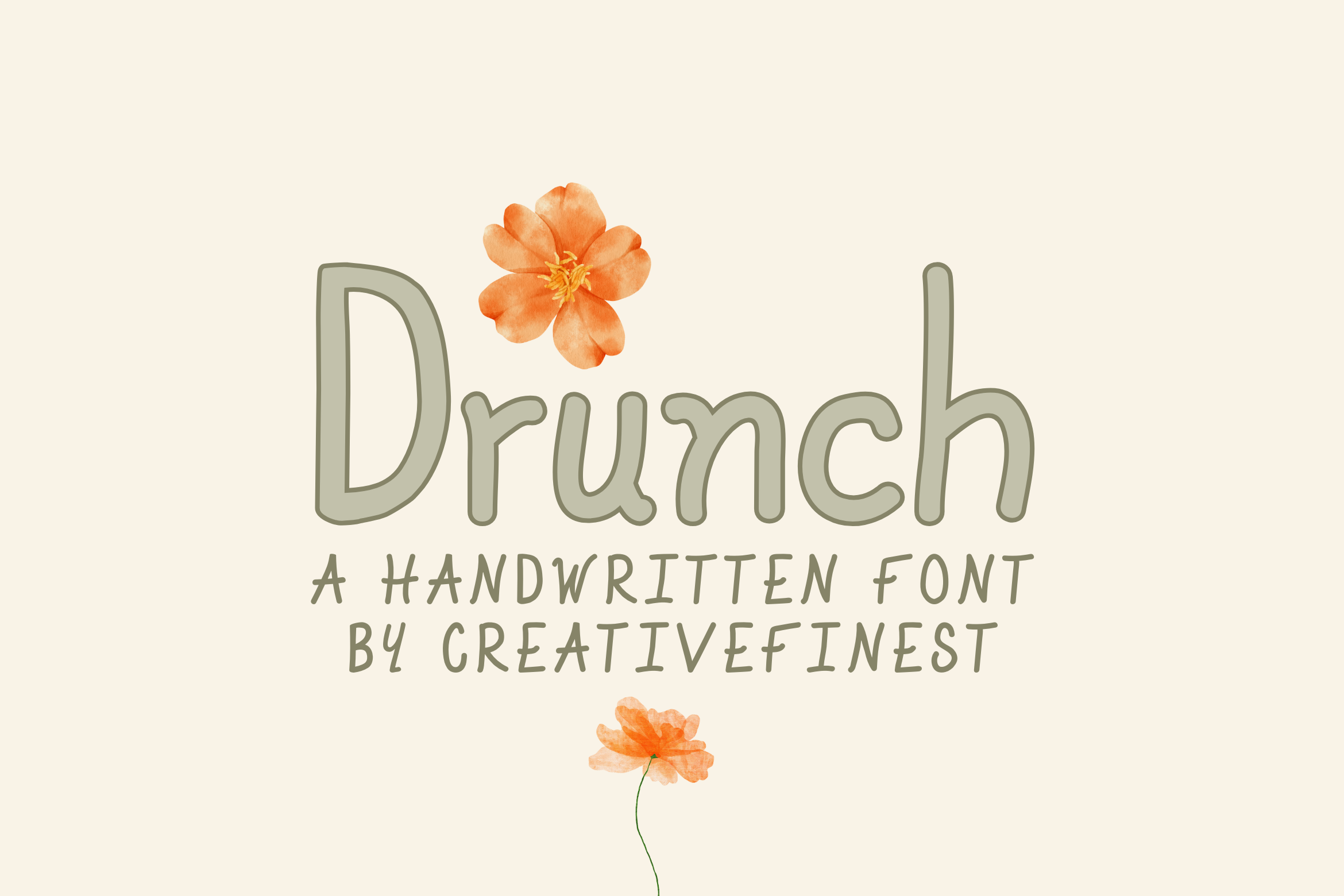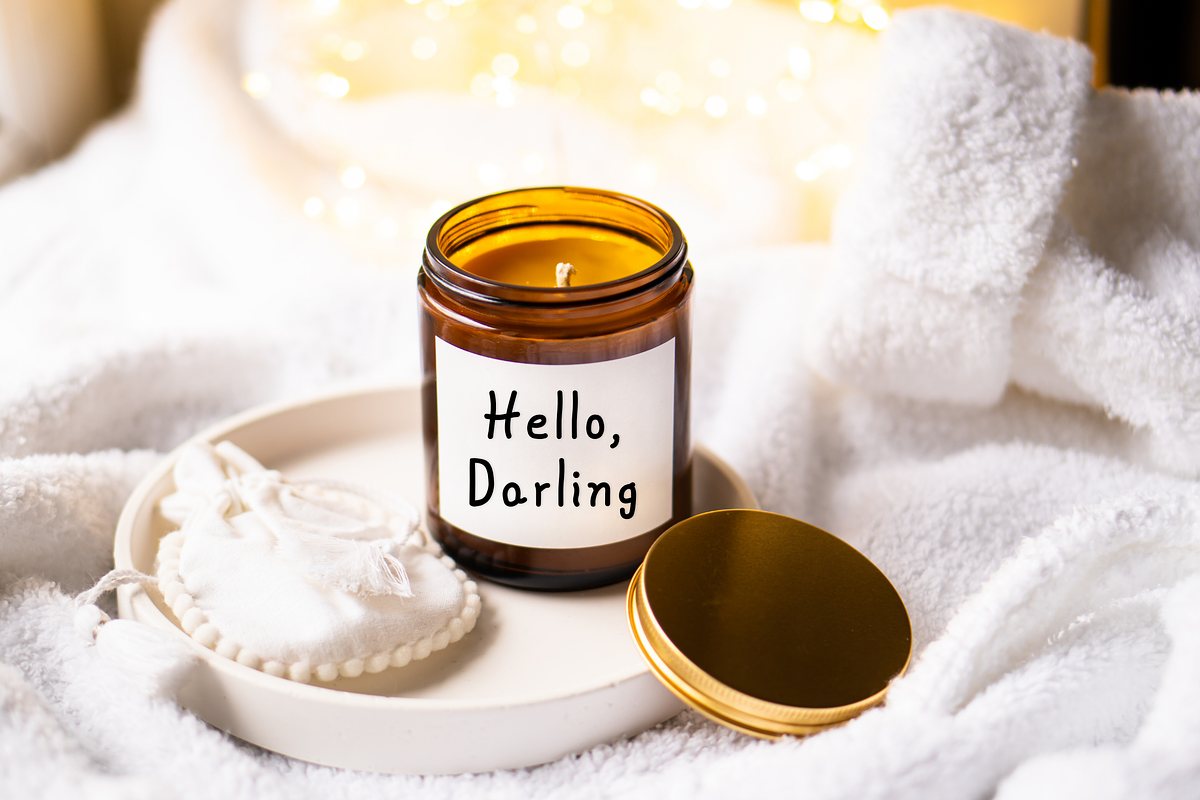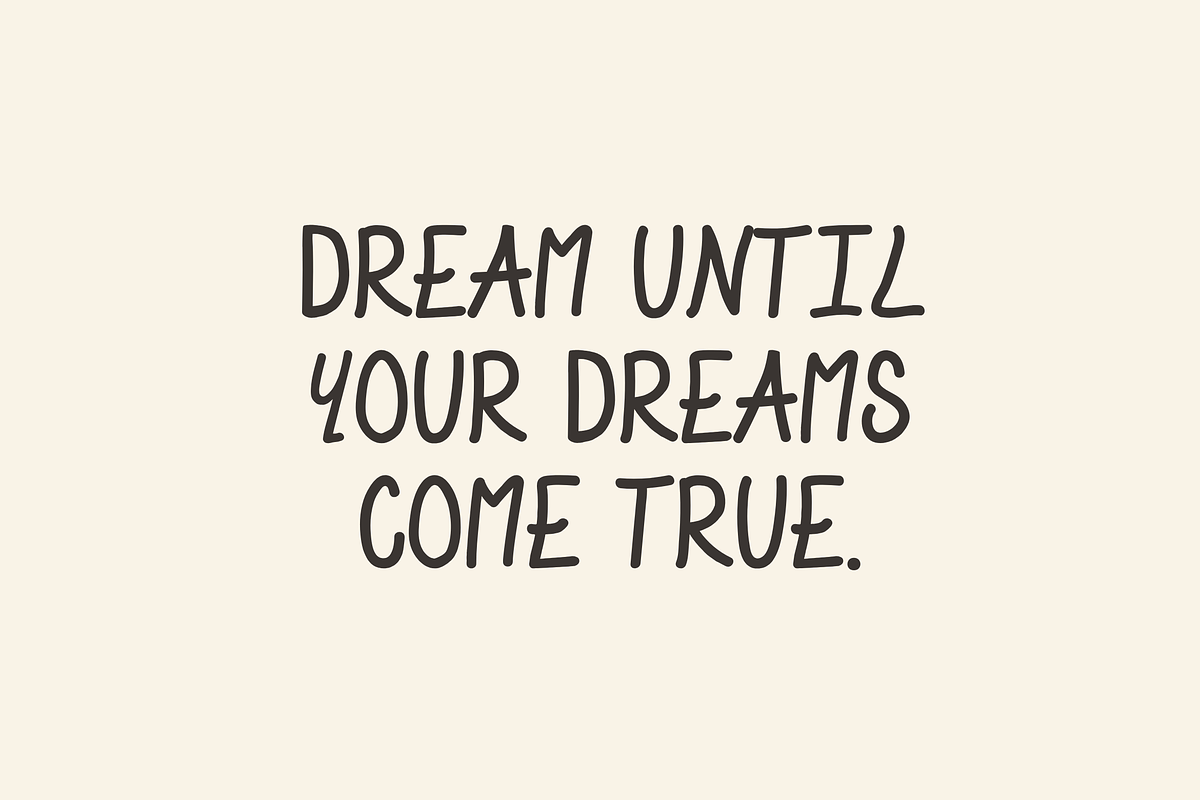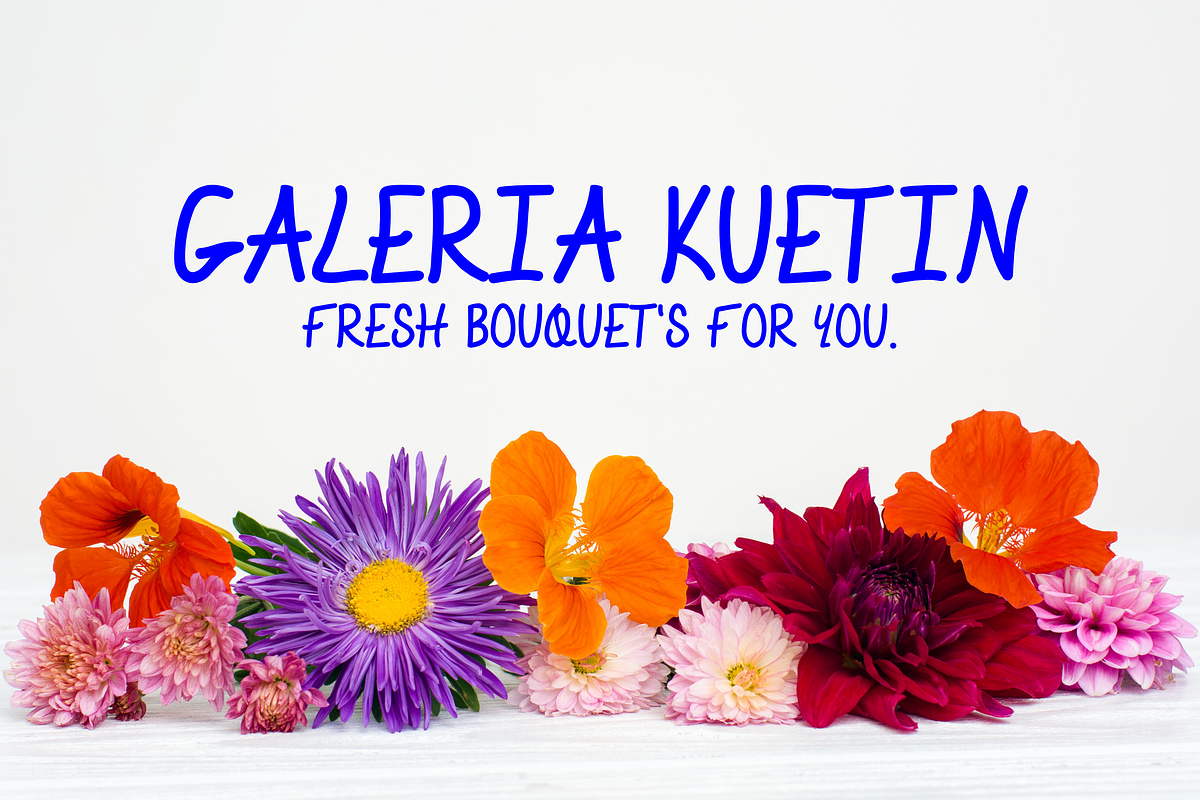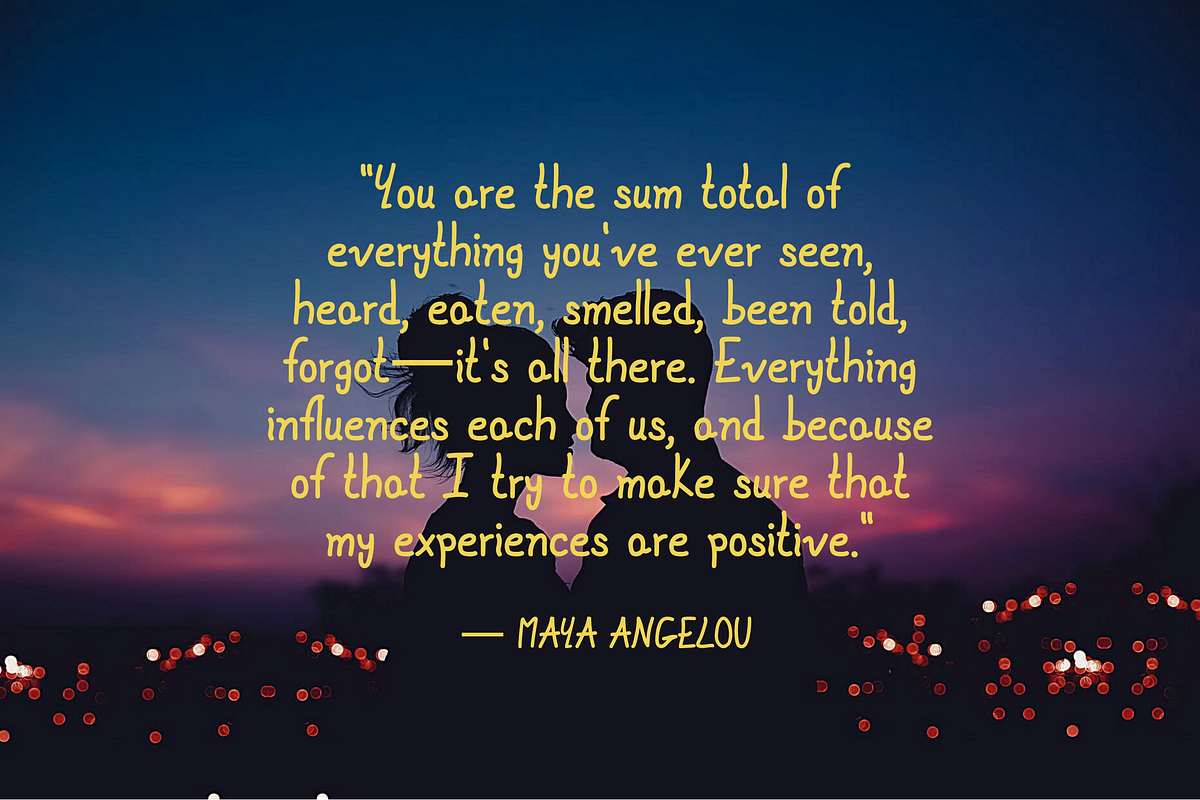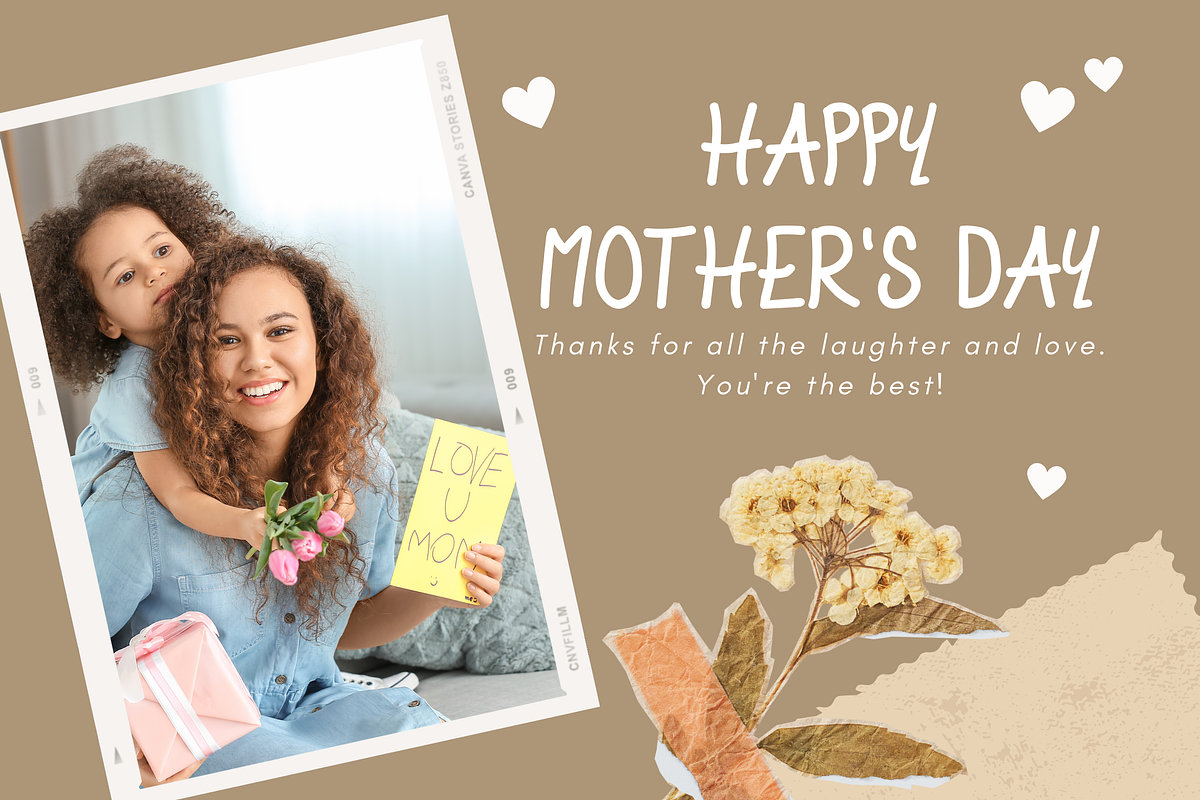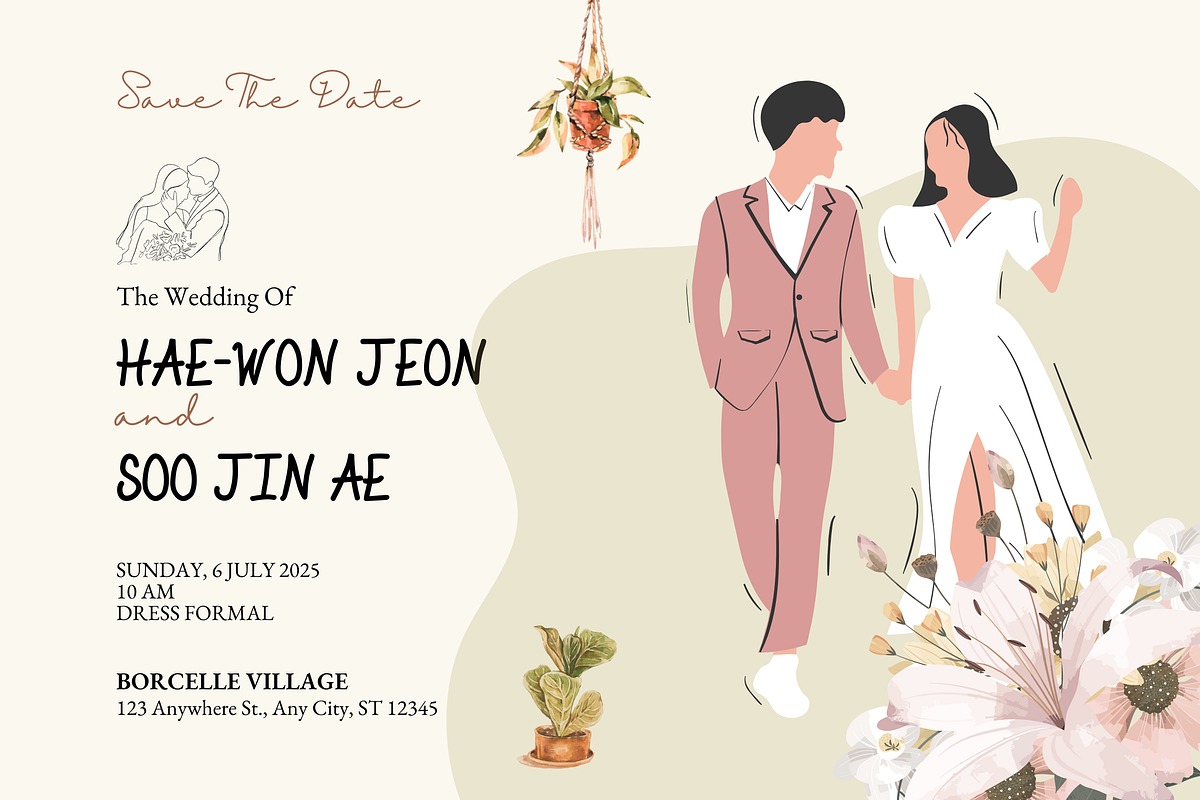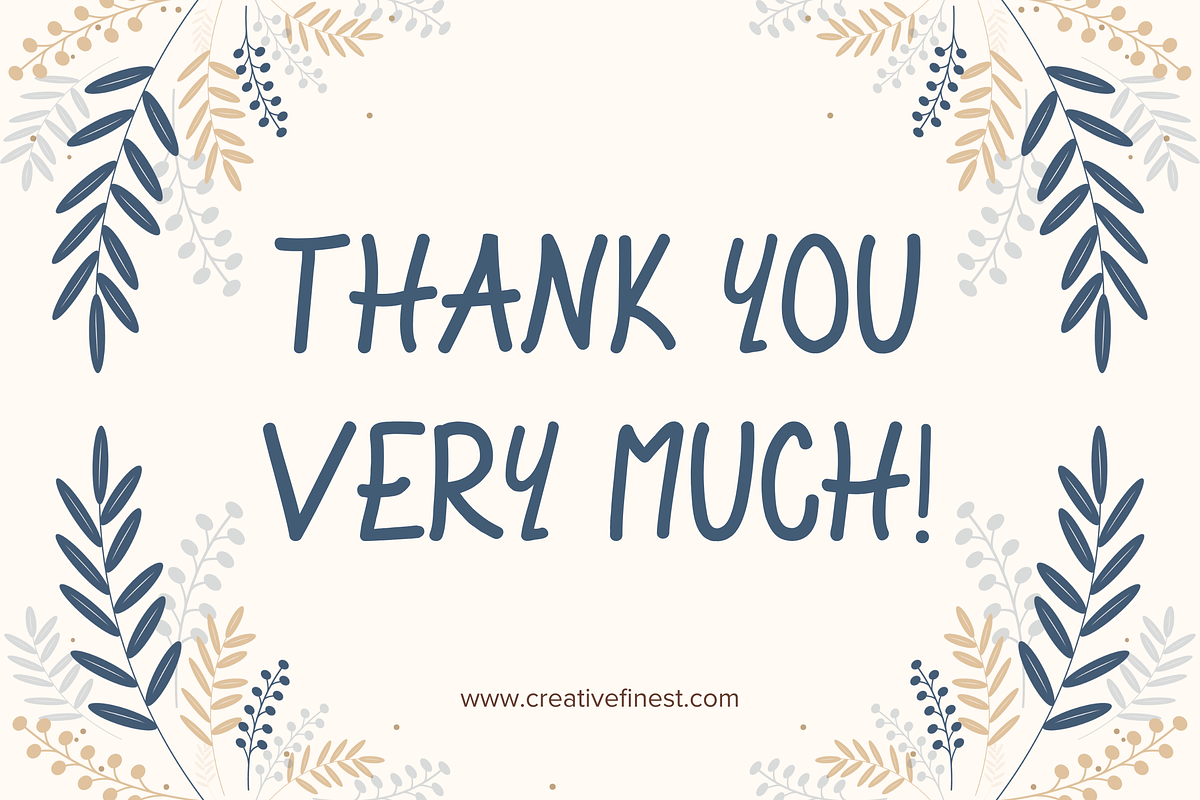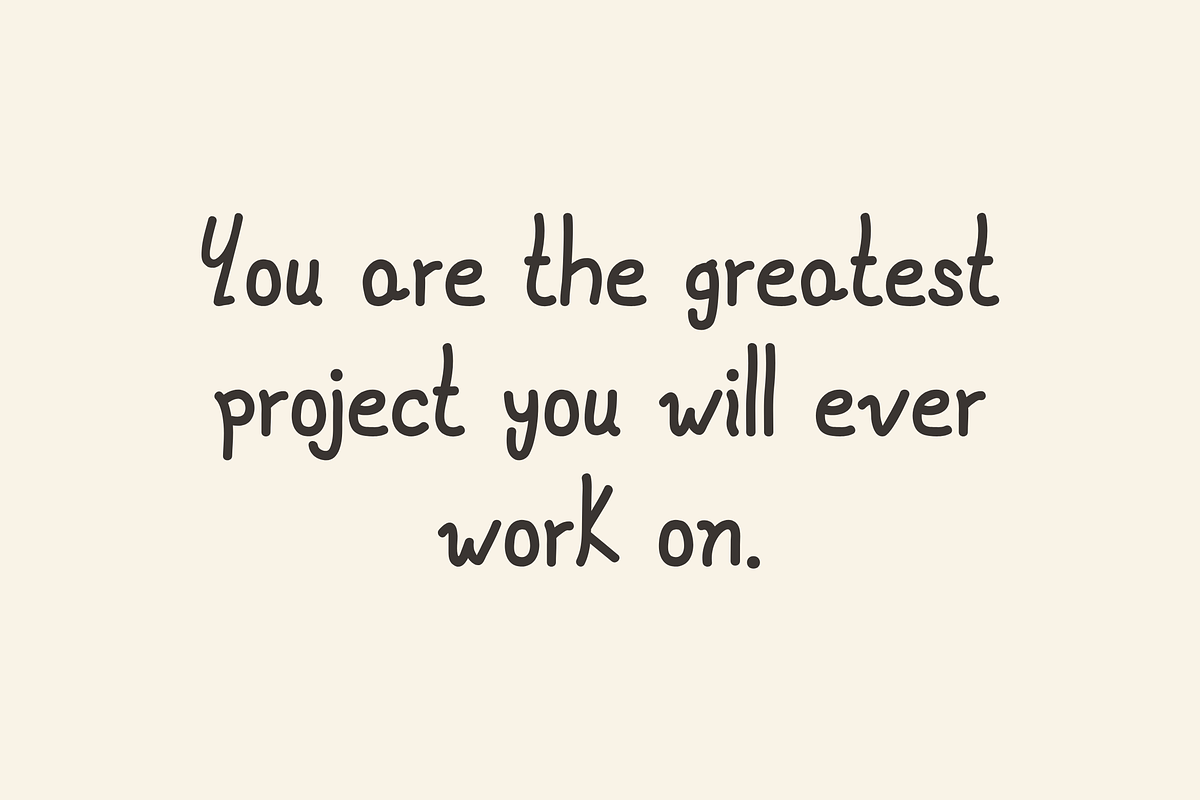
Drunch Handmade Font
Drunch Handmade Font is a bold and creative font with a hand-drawn look. It’s perfect for designing logos, cards, posters, invitations, and crafts. Its lively and natural style gives your work a warm and friendly feel.
This font includes uppercase and lowercase letters, numbers, punctuation, and various special characters. It is versatile and works great for rustic, DIY, or casual design themes.
- Complete set of characters, including international ones (shown in the preview)